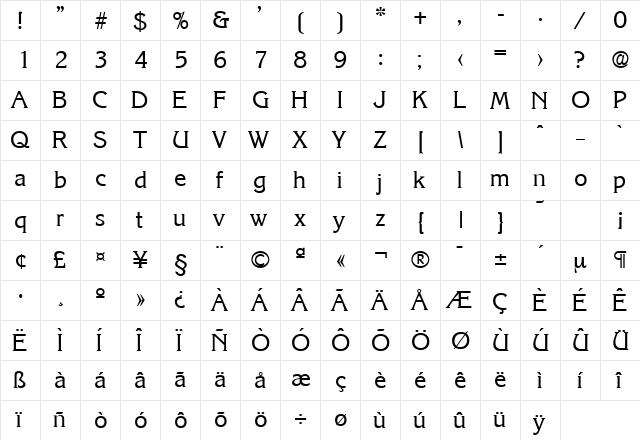
Korinth-Serial Regular
Design Context for Korinth-Serial Typeface
Korinth-Serial is a composed and adaptable typeface that performs quietly and consistently across a wide range of design contexts.